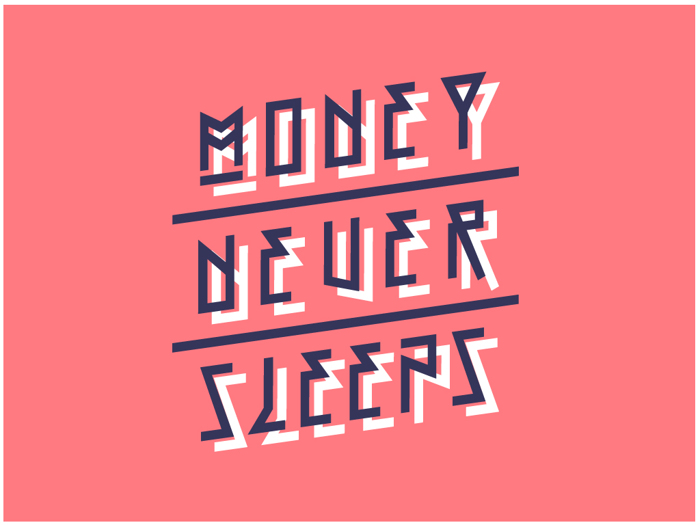
OFF Font
OFF Font is a Aztec font and was created on . Since then, it has been downloaded 30,997 times and added to 122 collections. 15 people have liked OFF Font and given it a thumbs up.
OFF! is a display fonts. It was designed specifically for headline, logotype and poster.
Inspired from mixed cultural related, indie music, skateboarding, sci - fi movie, and mostly inspired from Santa Cruz brand logo.